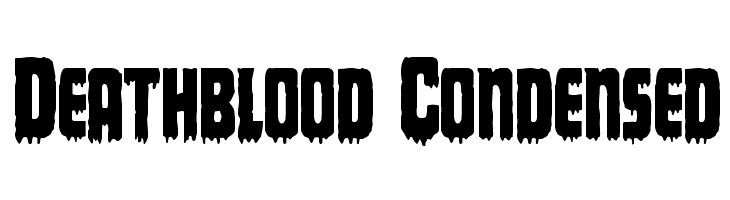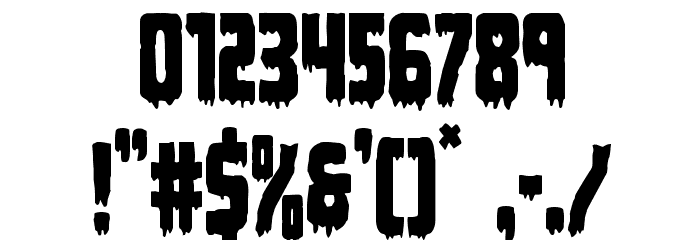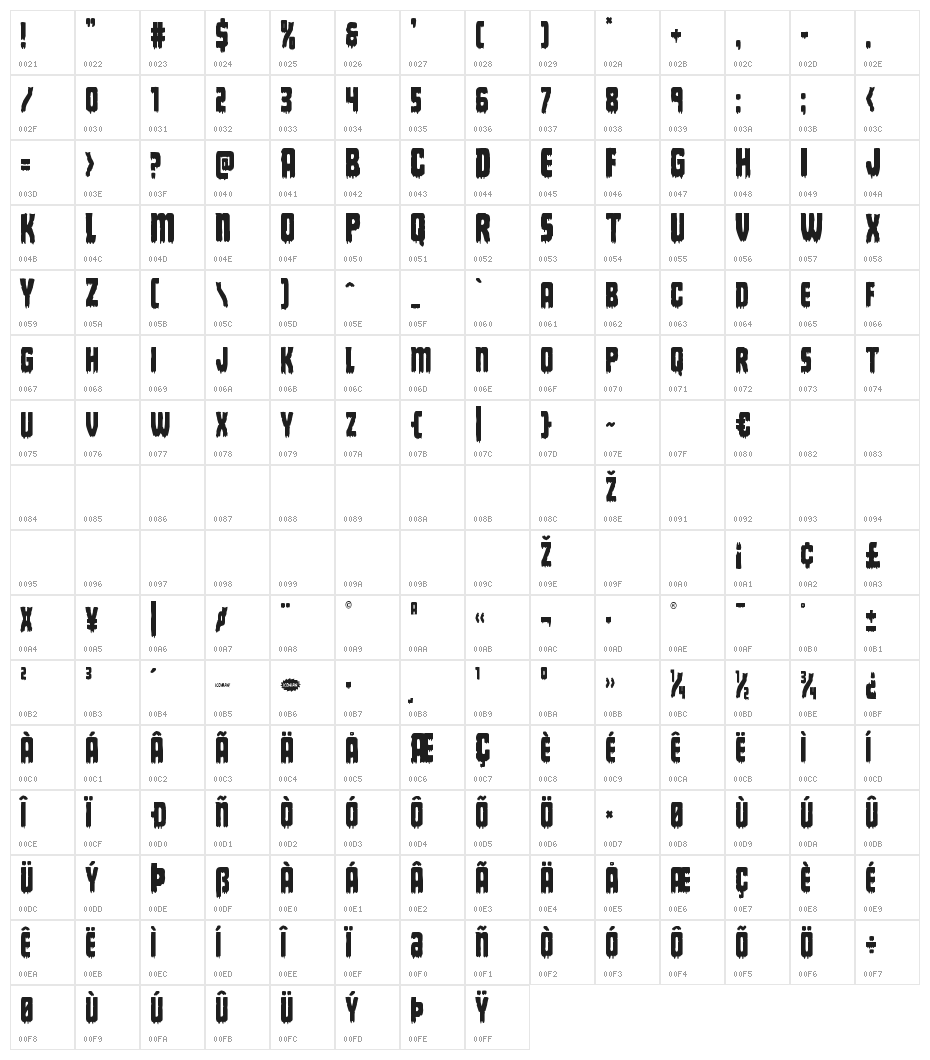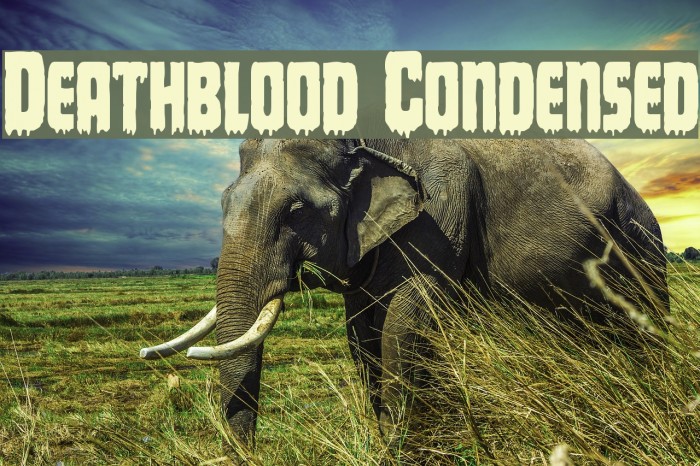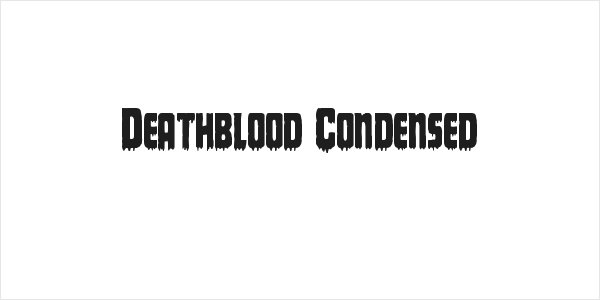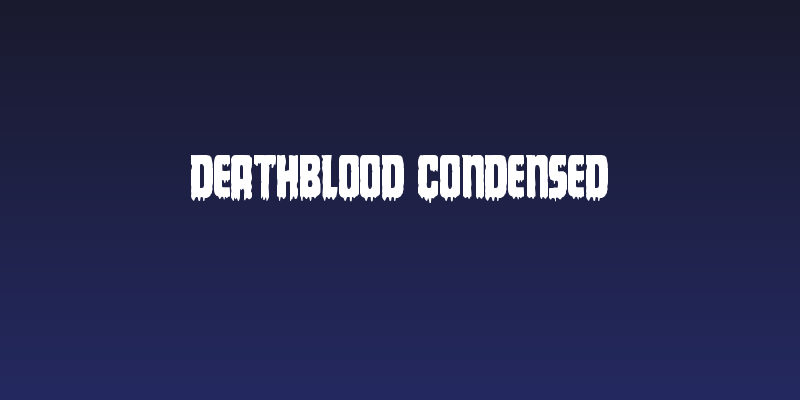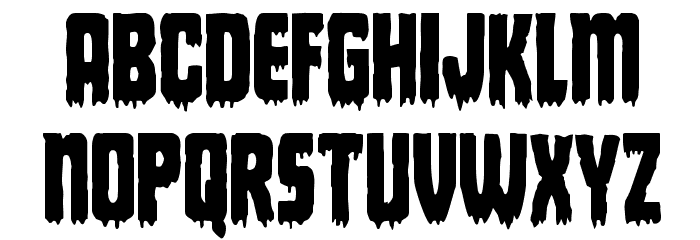
Deathblood Condensed Font
Deathblood Condensed Description
This font features a bold and dramatic style with a condensed structure. The characters have a unique, dripping effect that gives them a horror-themed appearance, reminiscent of blood or melting wax. The uppercase and lowercase letters maintain a consistent design, with sharp edges and a slightly uneven baseline that enhances the eerie aesthetic. The numbers and special characters follow the same stylistic cues, ensuring a cohesive look across all glyphs. This font is perfect for creating eye-catching designs that require a touch of the macabre or supernatural.
| Proposed Projects | Ideal for Halloween posters, horror movie titles, spooky event invitations, and themed merchandise. |